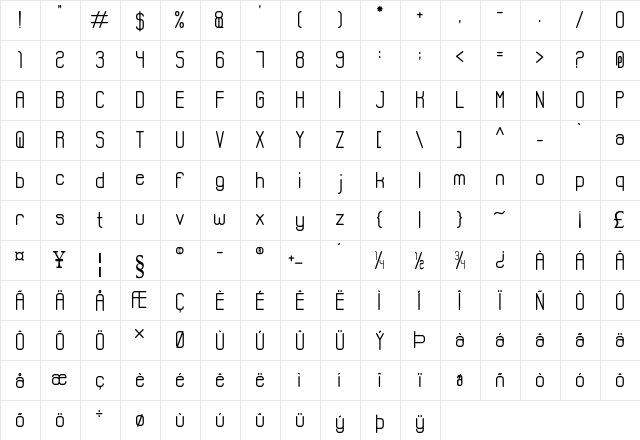
SHOFAR Regular
| Designer | Green Adventure Studio. 2019 |
Design Context for SHOFAR Typeface
SHOFAR is a composed and adaptable typeface that performs quietly and consistently across a wide range of design contexts.